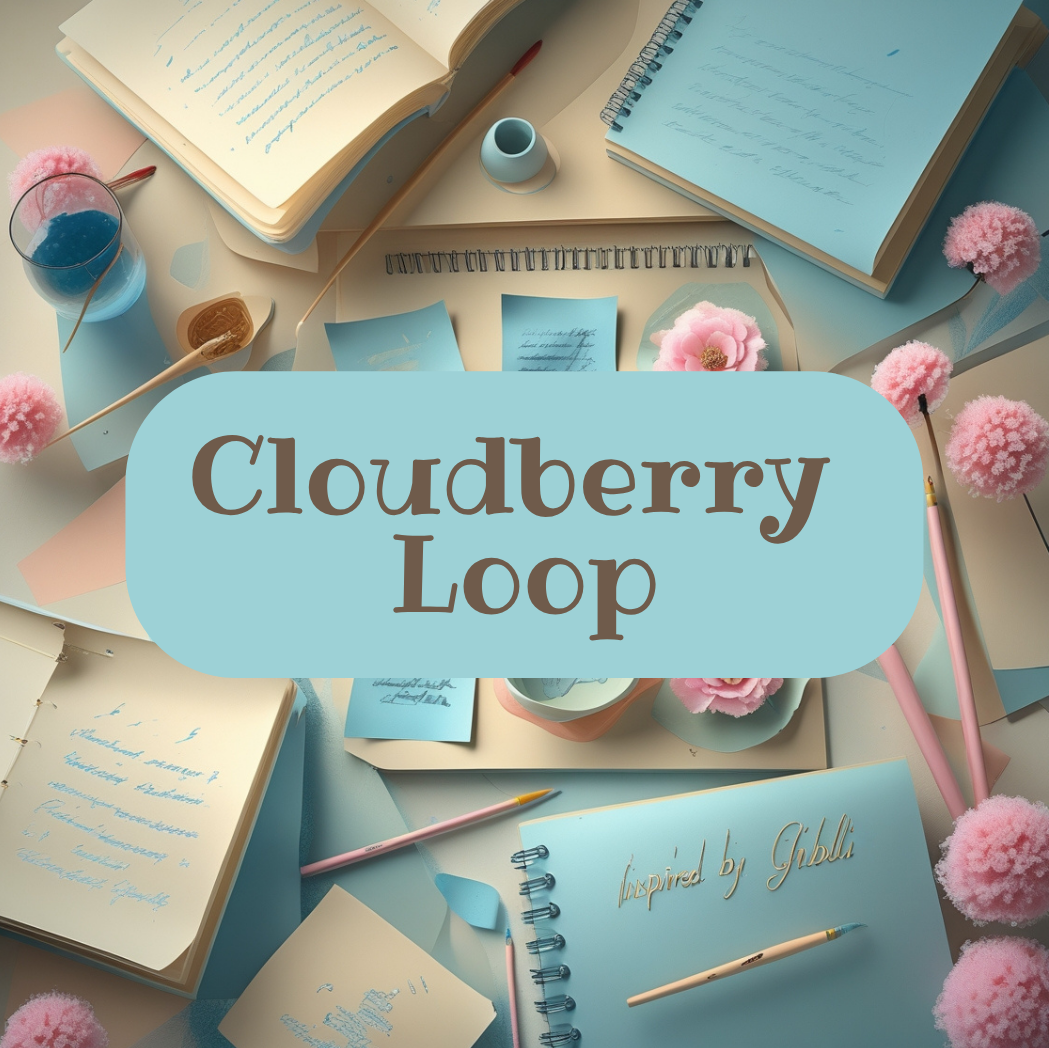
Cloudberry Loop
Cloudberry Loop is a type set with gentle swirls and soft, rounded shapes that evoke childhood and coziness. The font flows softly across the layout, leaving an impression of playful ease. Ideal for creative notebooks, covers, and decorative elements. The set includes styles with extended terminals and small embellishments. Every element is carefully aligned to maintain cohesion. One of those fonts that supports the page’s rhythm without taking the spotlight. Designed for smooth visual presence.